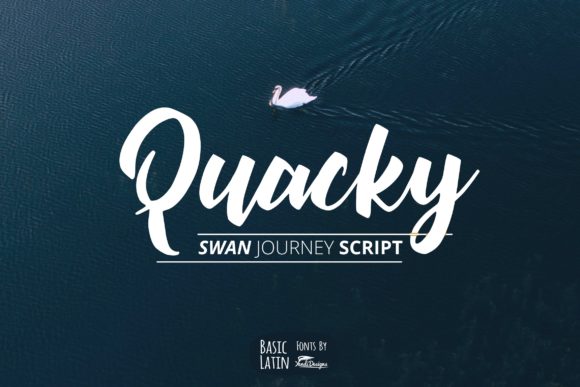
Meet Quacky Font, the playful and charming handwritten font that will ignite your creativity. Crafted by the talented YandiDesigns, this quirky and lovable font is perfect for designers looking to add a touch of whimsy to their projects.
With its bouncy strokes and adorable curves, Quacky Font is a guaranteed showstopper. Its intricate details and charming character make it the perfect choice for logos, posters, social media graphics, and any other project that demands a dash of personality.
Step into a world of endless possibilities with Quacky Font. Its versatility knows no bounds, allowing you to effortlessly create eye-catching logos that leave a lasting impression, witty posters that spark joy, and unique t-shirt and mug designs that are guaranteed to turn heads.
Unleash your imagination and let Quacky Font guide you through a journey of creative delight. Its captivating charm will transform your designs into works of art, leaving your audience mesmerized and eager for more.